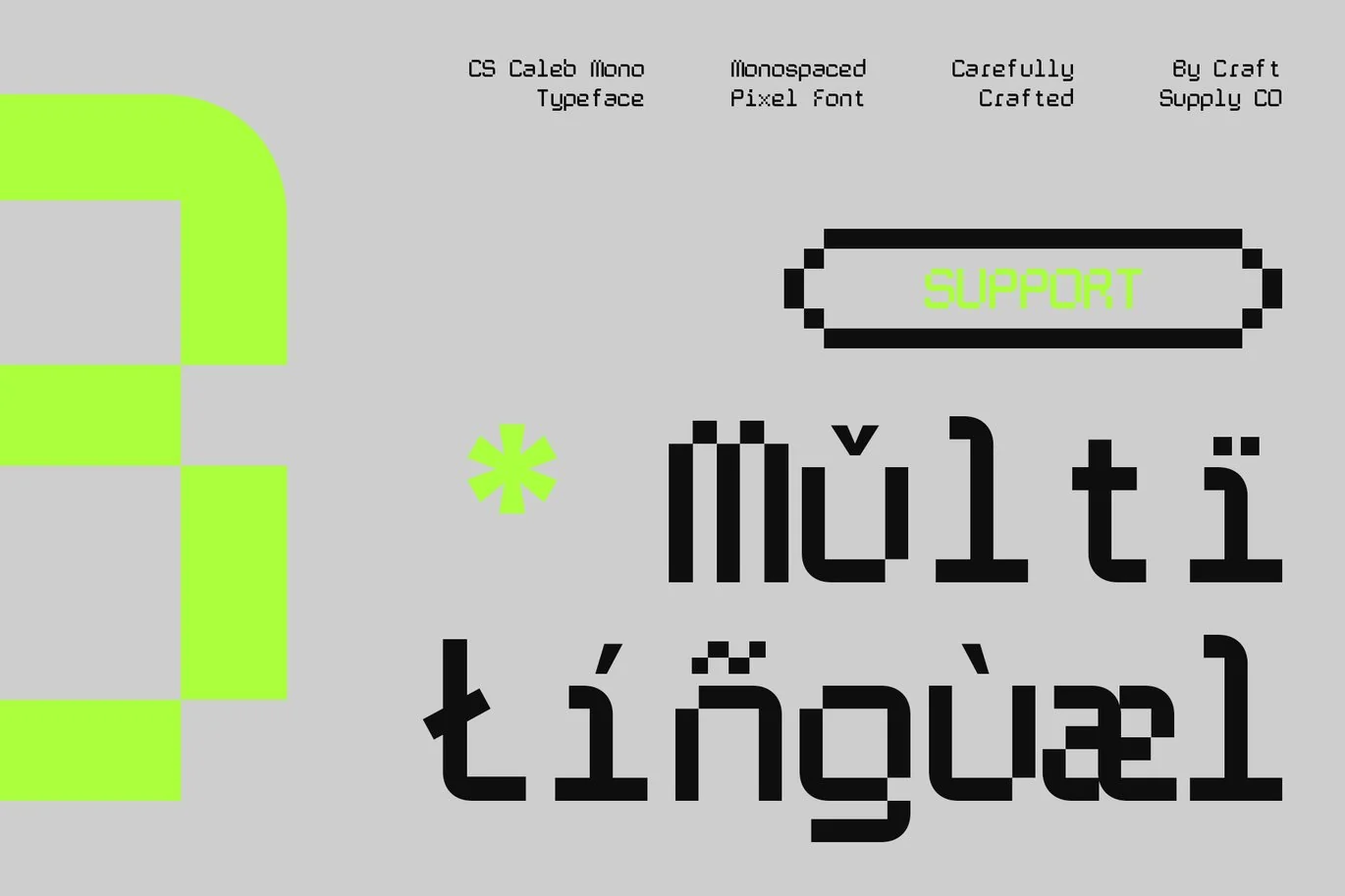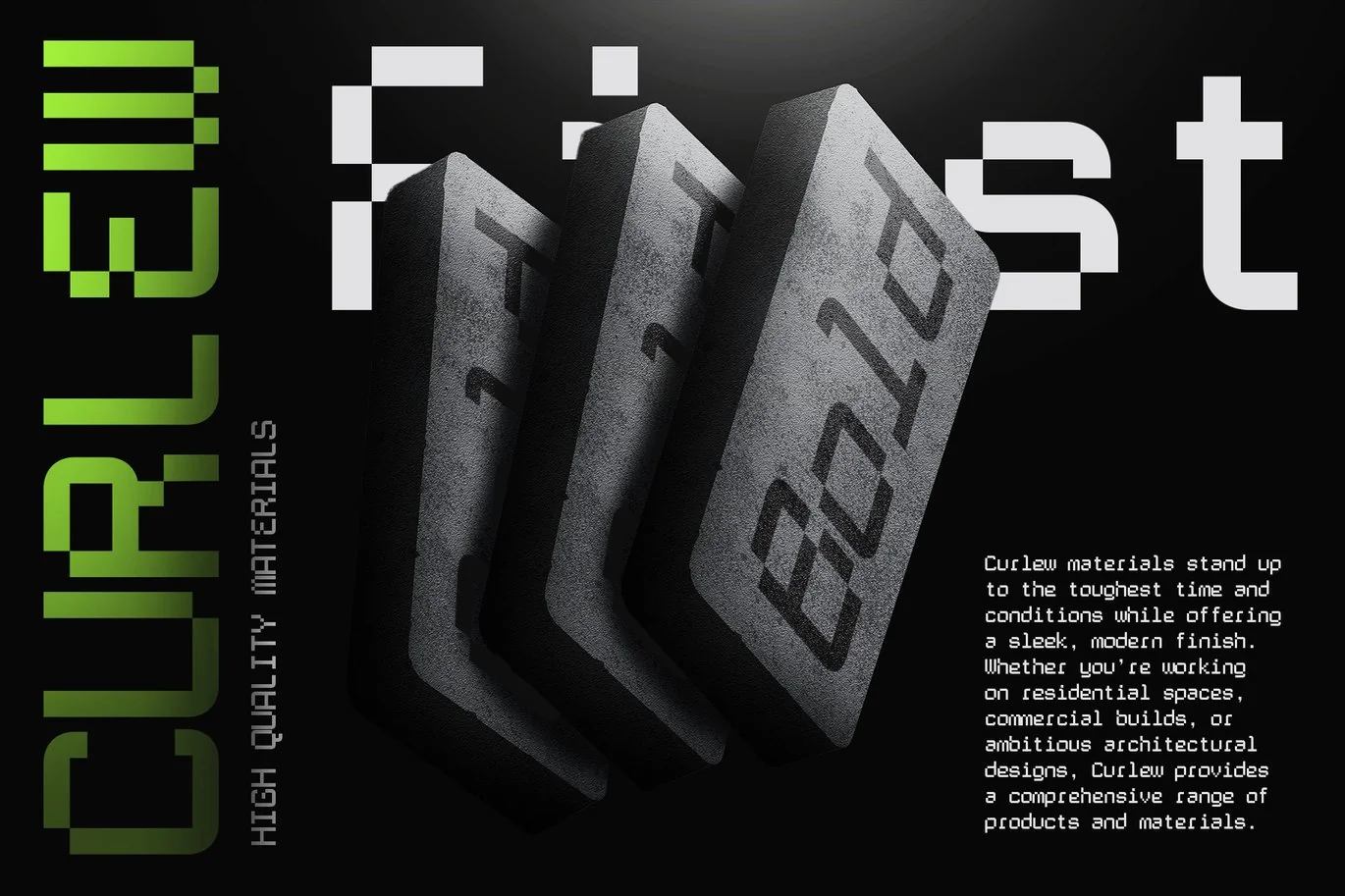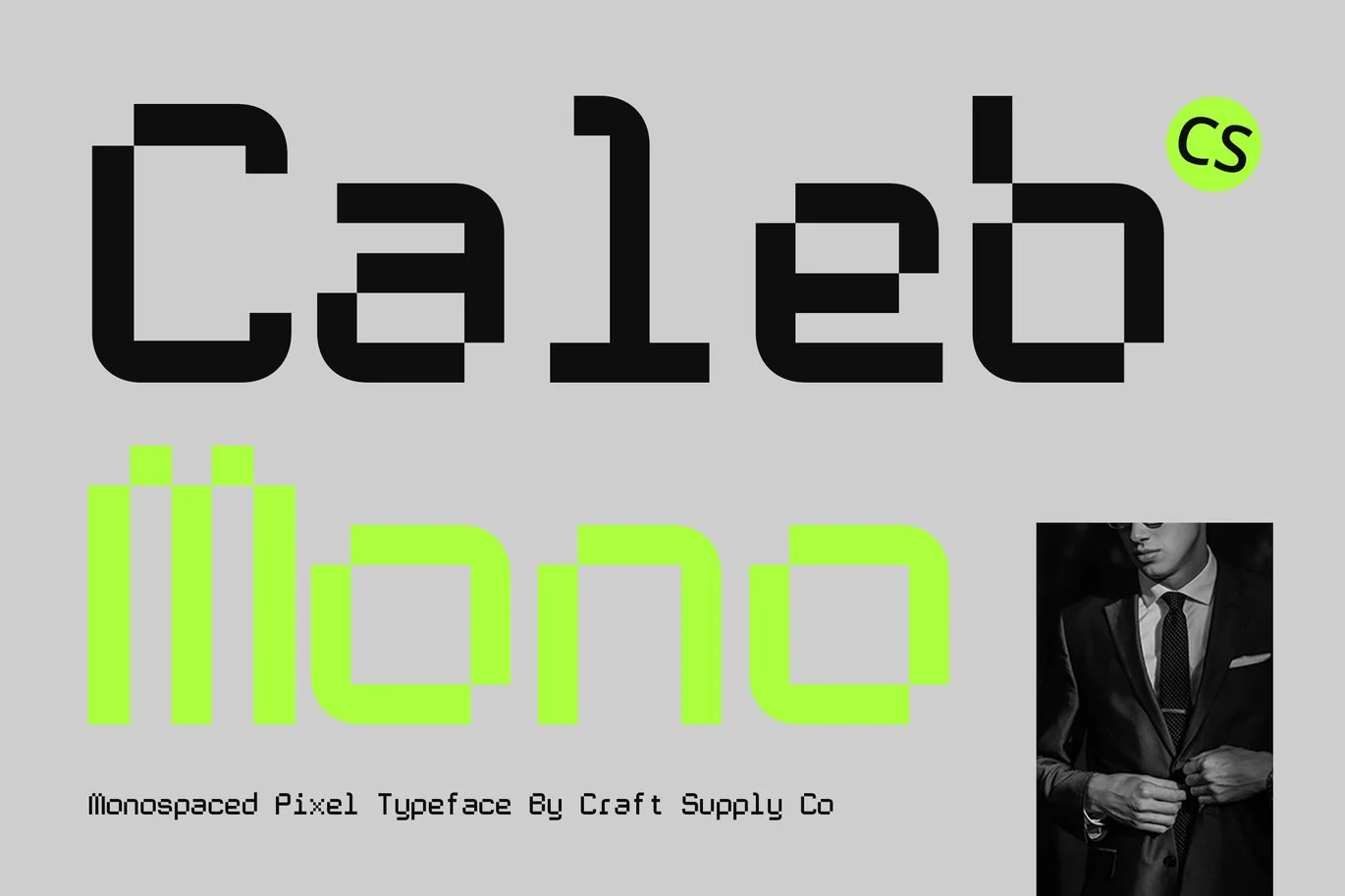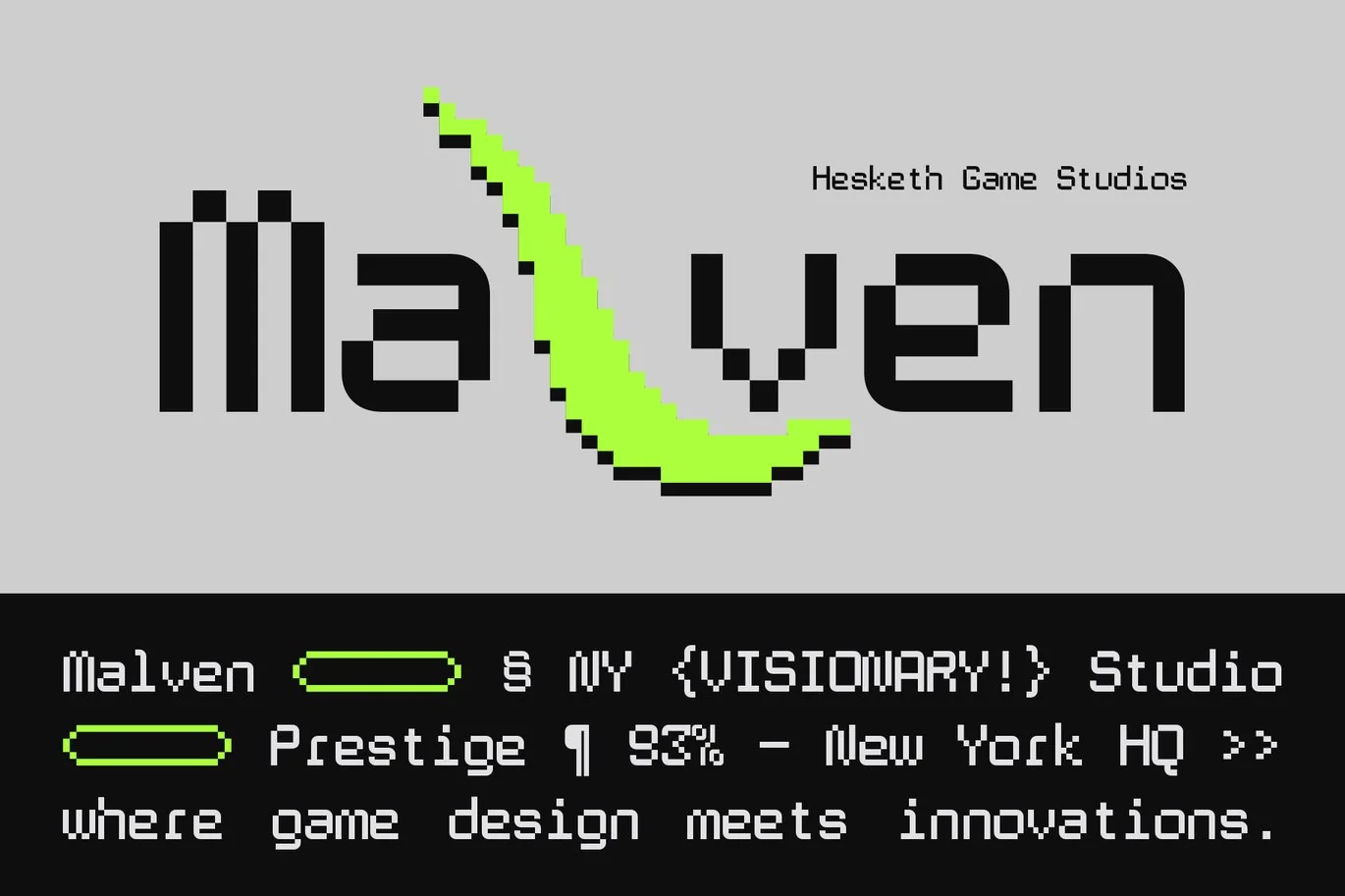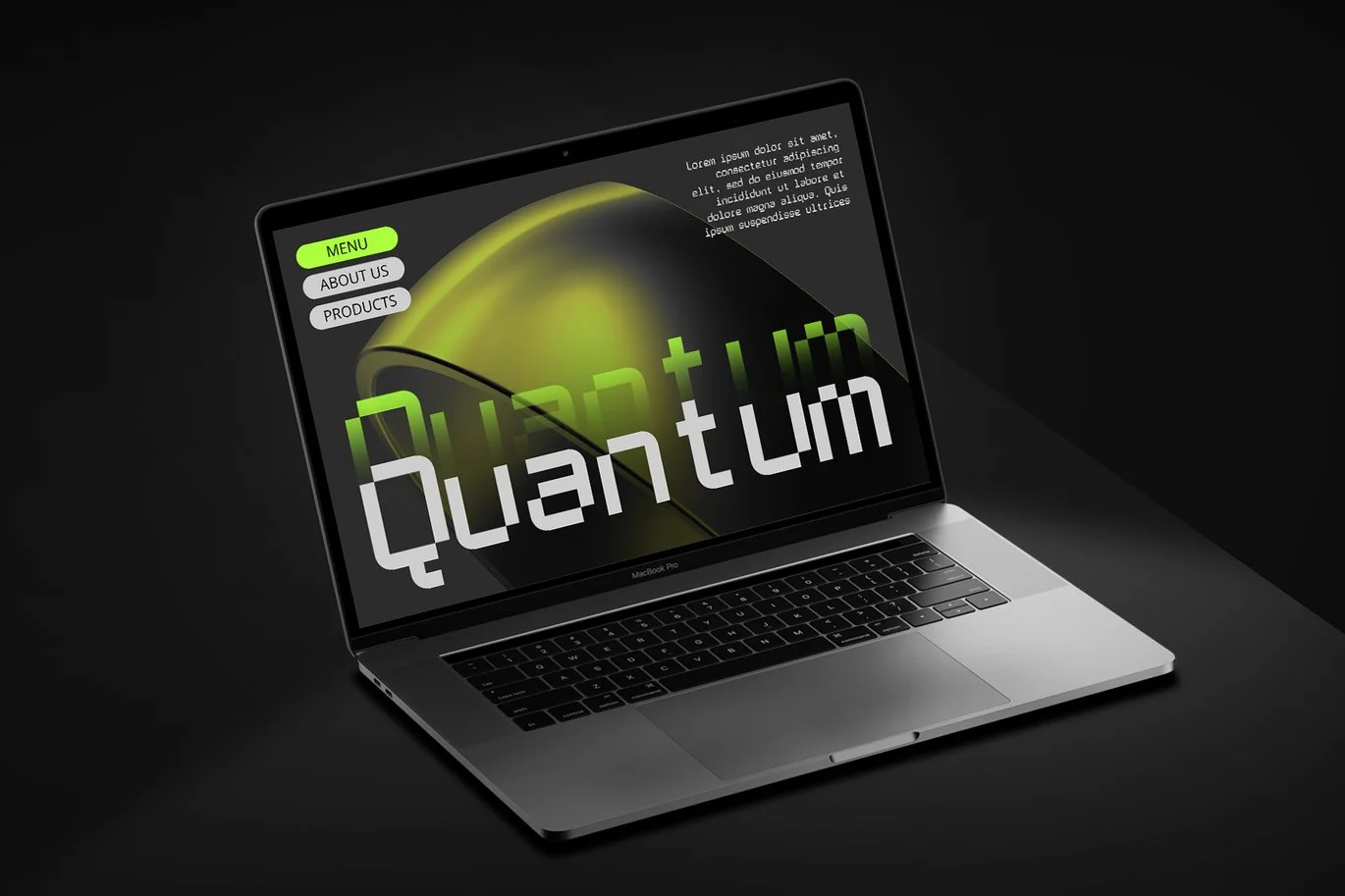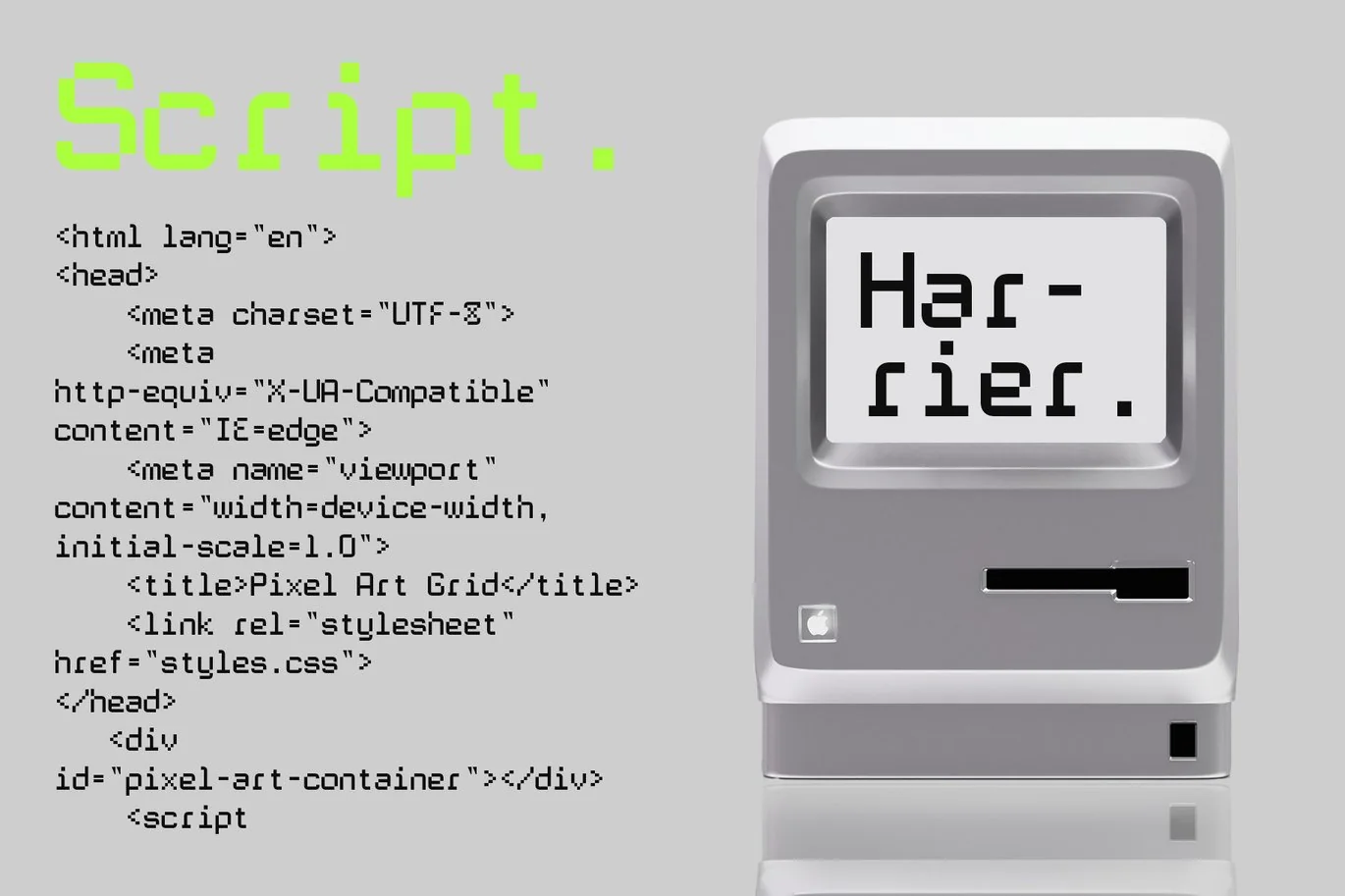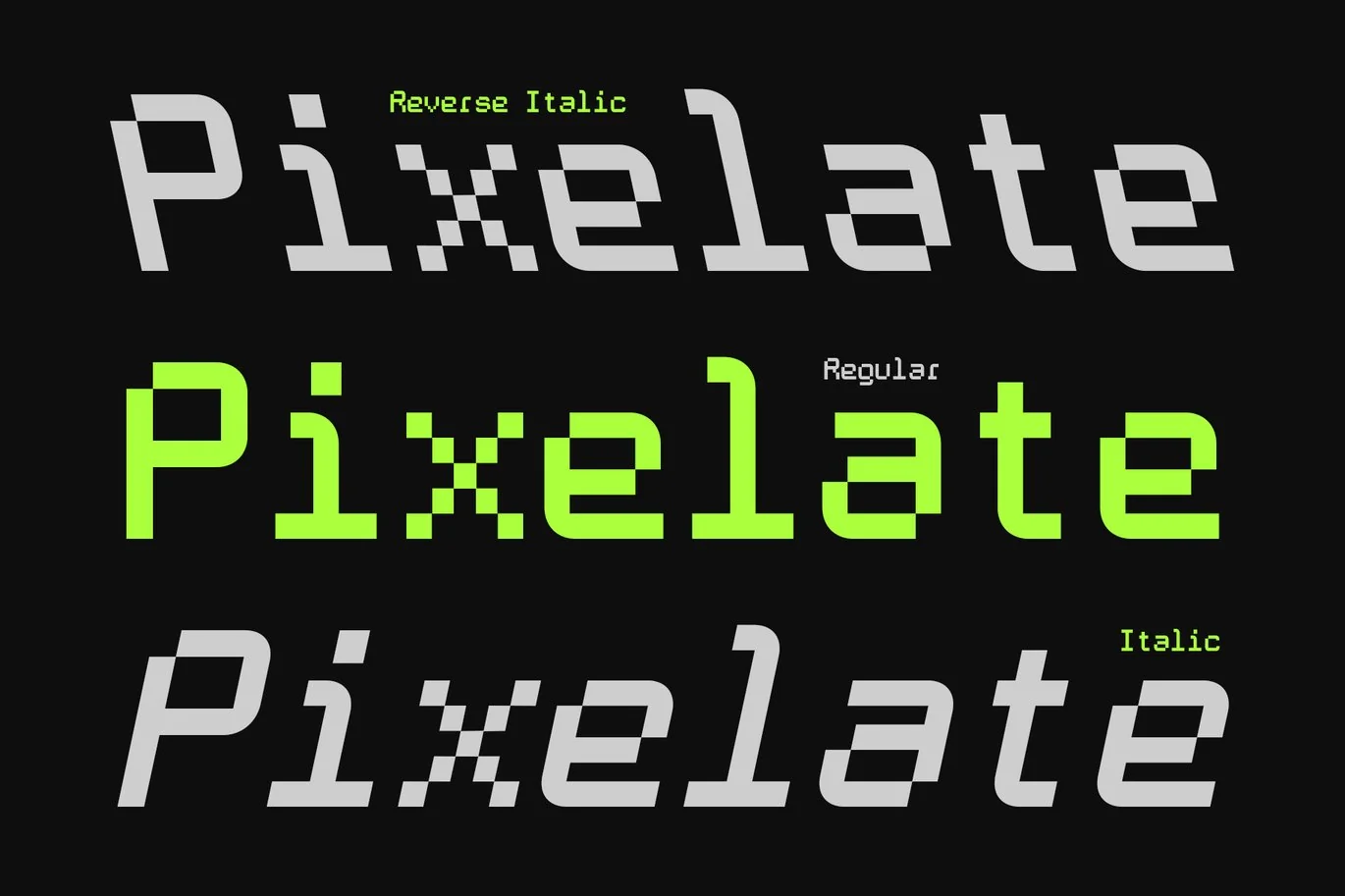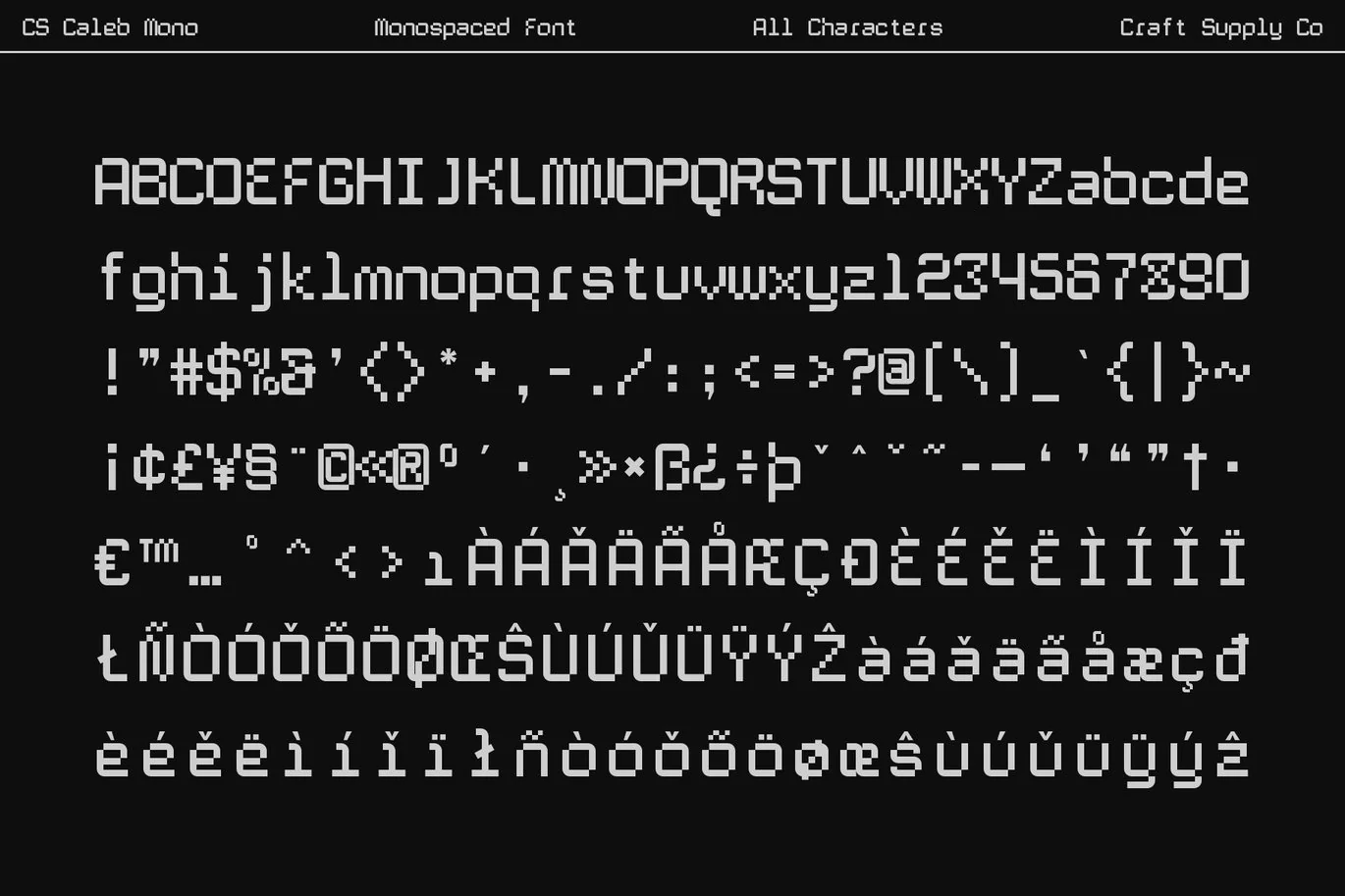
Caleb Mono – Monospaced Font
CS Caleb Mono – Monospaced Display Font
A Fusion of Structure and Retro-Futurism
This font is a distinctive display sans-serif font that blends the structured nature of monospaced design with the nostalgic appeal of pixelated graphics. The monospaced feature ensures that each character occupies an equal width, offering a sense of order and technical precision. This characteristic is particularly valued in coding and digital interfaces where alignment and clarity are paramount. The pixelated effect, reminiscent of early digital displays and 8-bit video games, adds a layer of visual interest and retro charm.
Pixelated Style Meets Modern Functionality
Adding a layer of visual interest, the pixelated effect introduces a nostalgic touch reminiscent of 8-bit graphics and early computer screens. The small, blocky elements evoke a sense of retro-futurism, bridging the gap between classic digital aesthetics and contemporary design. This combination creates a distinctive look that is both functional and visually engaging, making it a versatile choice for various design needs.
Ideal for Tech and Vintage Projects
This monospaced font is designed to excel in digital contexts where precision and a touch of nostalgia are desired. Its structured monospaced design enhances readability and organization, making it suitable for coding environments and technical documentation. Meanwhile, the pixelated elements offer a playful nod to the past, making it an ideal choice for vintage-inspired designs and digital art.